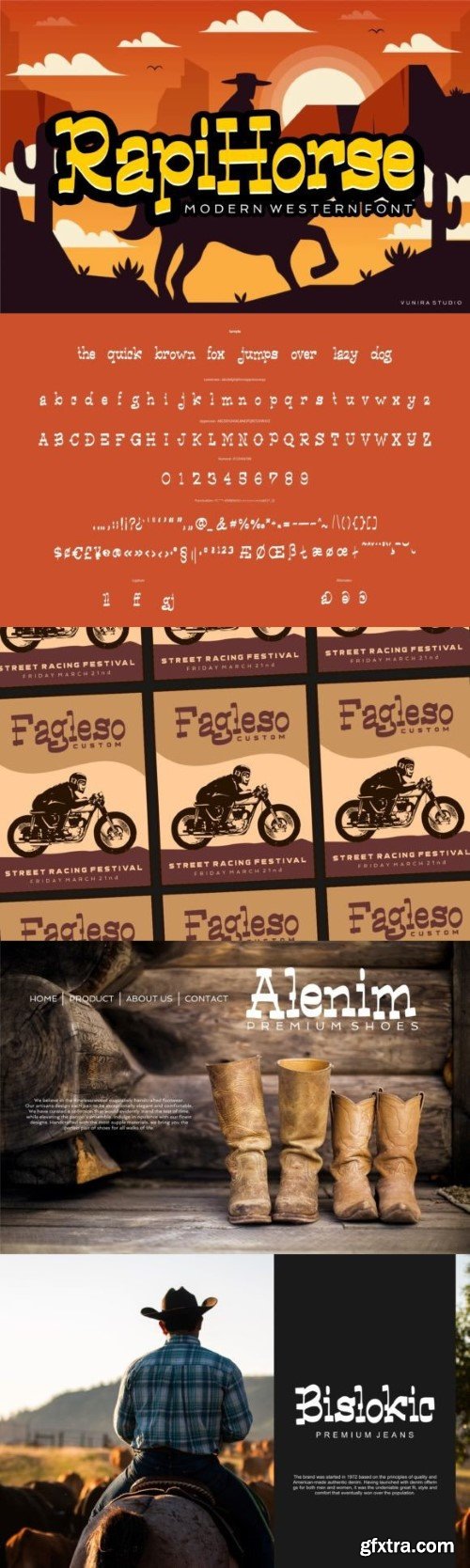
rapid horse font
Rapi Horse – Modern Western is a cool and contemporary font that brings a touch of the Wild West into the digital age. With a sleek design, it adds a modern twist to classic Western aesthetics. Perfect for creating a bold statement in your designs, Rapi Horse is versatile and easy on the eyes. Whether you’re working on a poster, logo, or any project that needs a hint of Western flair, Rapi Horse is your trusty companion for a stylish and modern take on the frontier spirit.